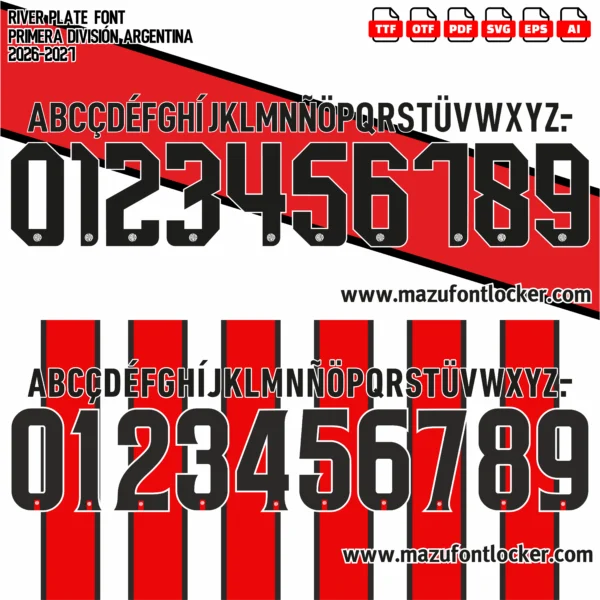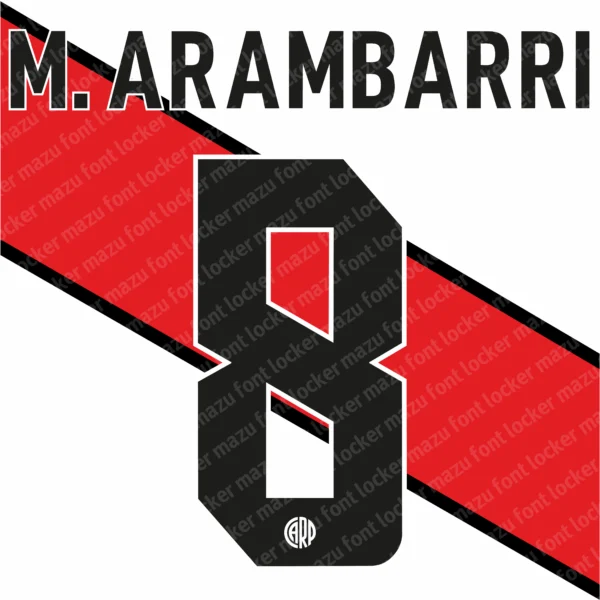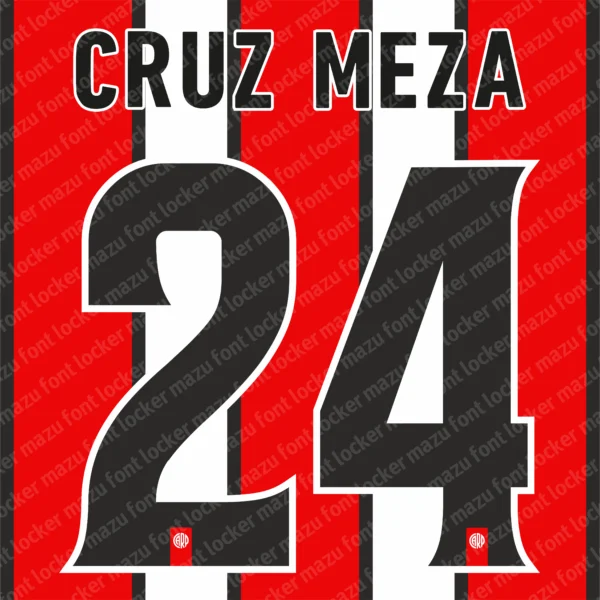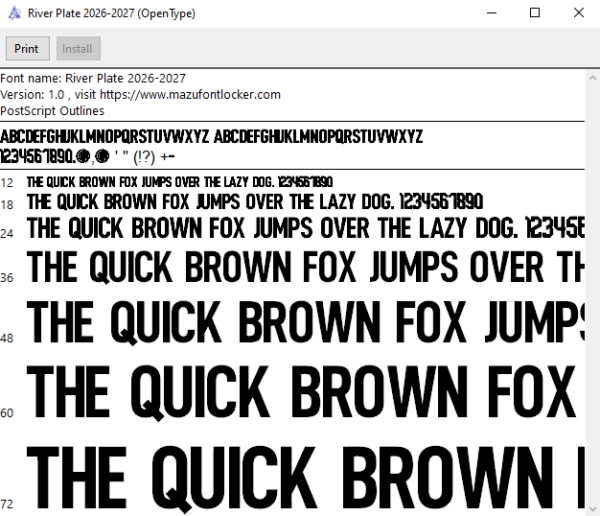
River Plate 2026-2027 Font Vector – Stunning Millonarios Masterpiece
This font captures the commanding, steel-sharp, lightning-strike, and precision-engineered lettering that perfectly embodies River Plate’s iconic club identity, proud Argentine & Buenos Aires heritage, never-back-down mentality, and raw football power — delivering unmatched authenticity, premium quality, explosive energy, and elite Liga Profesional & Copa Libertadores dominance for professional jersey mockups, dynamic football graphics, premium sports branding, passionate fan creations, and high-end design projects.
River Plate 2026-2027 Font Vector – Iconic Red & White Typeface
The River Plate 2026-2027 Font Vector is a premium typeface that accurately recreates the official match lettering worn by Club Atlético River Plate during the 2026-2027 seasons. This high-quality vector font kit captures the bold, clean, and instantly recognizable typography that perfectly complements the club’s iconic red and white identity.
Designed for professional designers, football enthusiasts, and passionate River Plate supporters, the River Plate 2026-2027 Font Vector delivers exceptional authenticity for creating realistic jersey mockups, football merchandise, social media graphics, match posters, and custom fan artwork. Every character has been carefully recreated to match the powerful and precise visual style of one of Argentina’s most successful and historic football clubs.
Why Choose River Plate 2026-2027 Font Vector
This font stands out thanks to its precise vector construction and authentic club styling. Every letter and numeral has been meticulously recreated to match the official shirt lettering used throughout the 2026-2027 Liga Profesional, Copa Libertadores, and domestic campaigns. Whether you’re producing professional kit templates or creating eye-catching football content, the River Plate 2026-2027 Font Vector delivers a genuine match-ready appearance.
The lettering featured in the River Plate 2026-2027 Font Vector combines clean geometric lines with powerful modern proportions. The result is a premium and highly readable typeface that reflects River Plate’s ambition, Buenos Aires pride, and passionate global fanbase across multiple seasons.
- Complete uppercase A–Z alphabet and numbers 0–9 in authentic River Plate 2026-2027 style
- Special River Plate badge glyph – Press the “:” (Colon) key to insert the club badge
River Plate 2026-2027 Seasons
The 2026-2027 period marked an eventful chapter for Club Atlético River Plate as they competed across the Liga Profesional and CONMEBOL competitions with determination and ambition. Wearing their iconic red and white colors, the club created memorable moments for their loyal supporters worldwide.